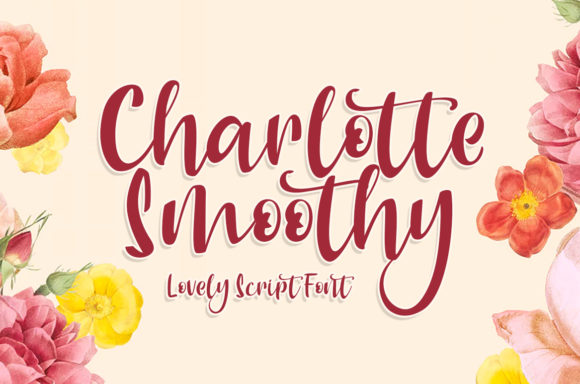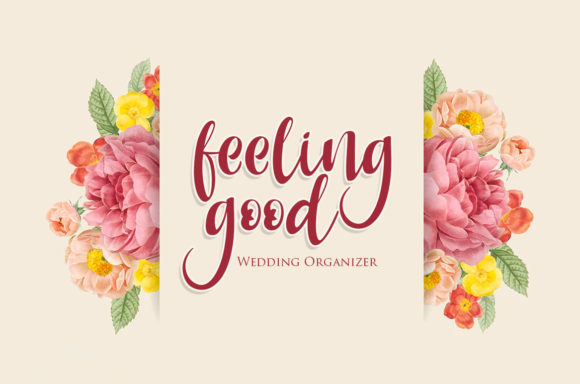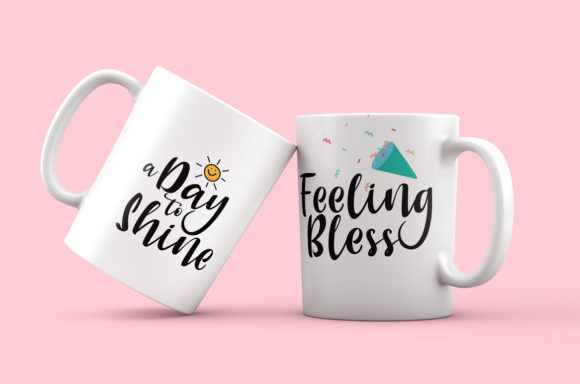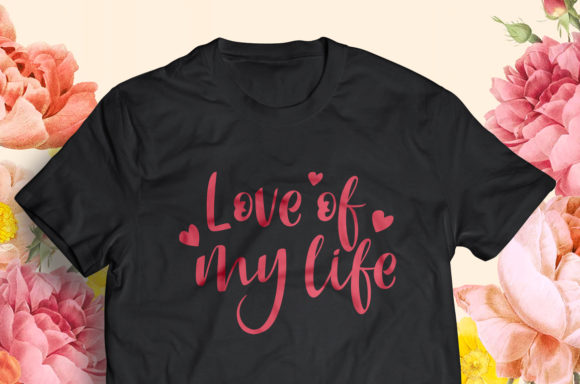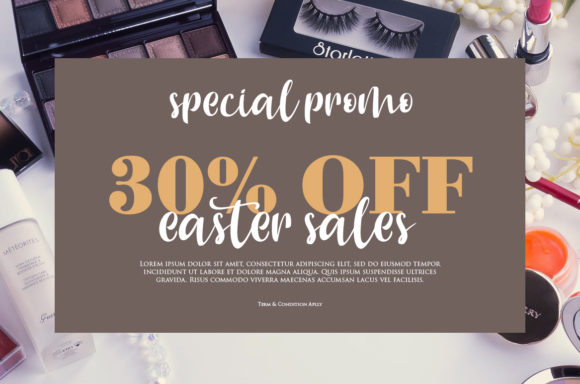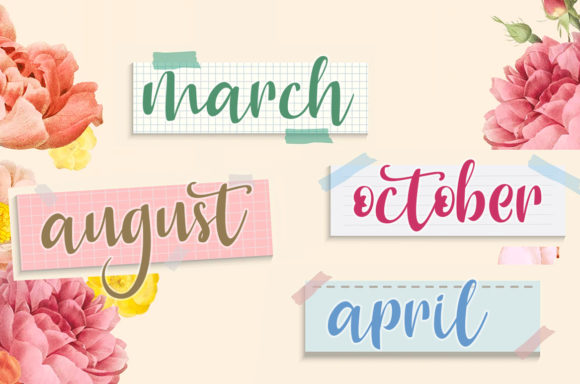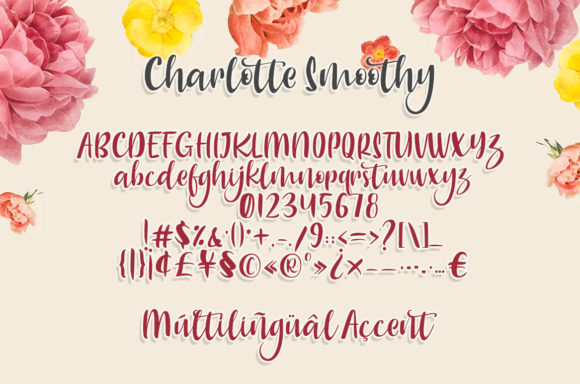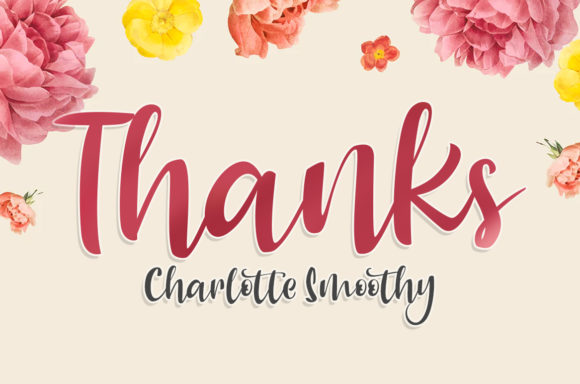
Charlotte Smoothy Font
About Charlotte Smoothy Font
Charlotte Smoothy is an incredibly stunning script with beautiful letters and extravagant swashes. Fall in love with its romantic charm!